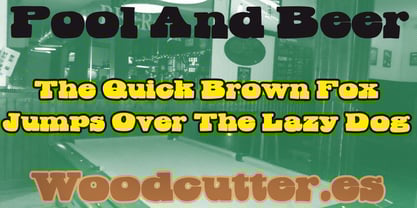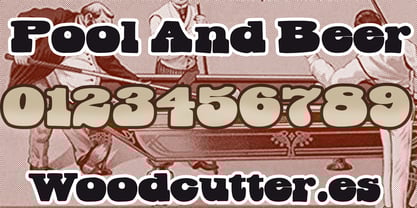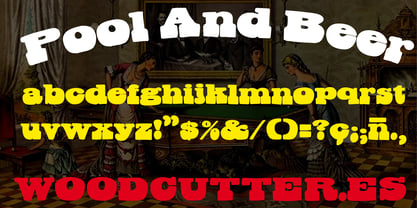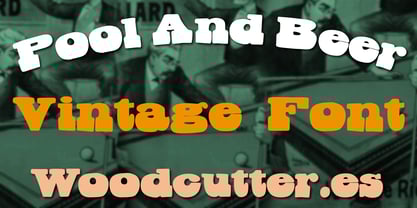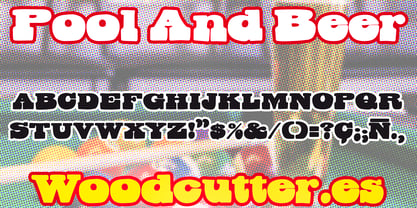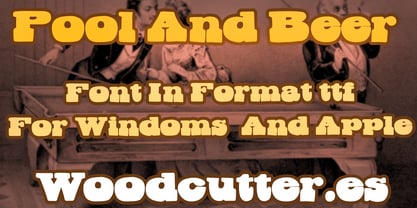
Pool And Beer
by Woodcutter
The Pool And Beer Font Family was designed by Jordi Manero and published by Woodcutter. Pool And Beer contains 1 styles.
"Pool And Beer" is an uppercase and lowercase font featuring rounded letters that evoke a vintage retro style. Its smooth, curved shapes add a classic and elegant touch, perfect for projects aiming for a nostalgic yet refined aesthetic. Ideal for posters, logos, or thematic menus, this typeface captures the essence of the golden era with a versatile design that blends retro and modern. "Pool And Beer" is the perfect choice to stand out in relaxed yet sophisticated settings, bringing warmth and style to every stroke.
Designers: Jordi Manero
Publisher: Woodcutter
Foundry: Woodcutter
Design Owner: Woodcutter